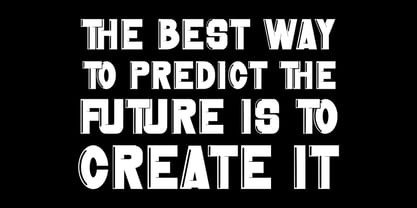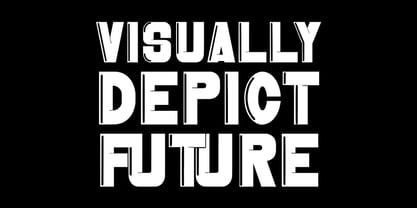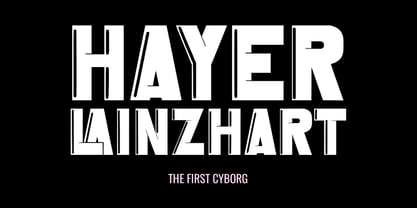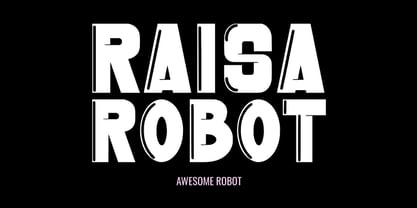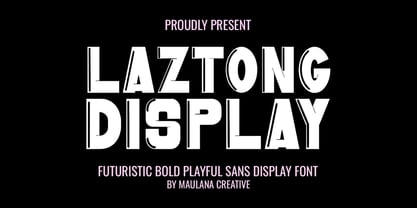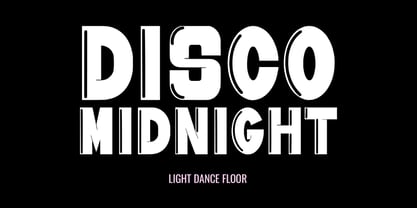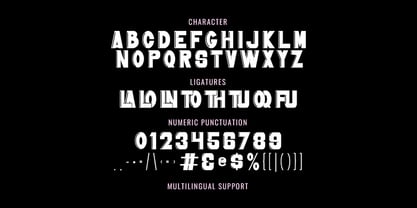
MC Laztong
by Maulana Creative
The MC Laztong Font Family was designed by Gilang Maulana and published by Maulana Creative. MC Laztong contains 1 styles. More about this family
Laztong Display is a bold, futuristic, and playfully designed sans serif font that demands attention. Crafted to embody the essence of the future, technology, and energetic club culture, Laztong features a unique split-line effect within its characters, giving it a distinctive, dynamic, and glitchy aesthetic. Why Laztong is Your Next Must-Have Font: - Futuristic and Edgy: Perfect for projects needing a modern, sci-fi, or cyber-punk vibe. Ideal for tech branding, gaming, and digital art. - High Impact Display: The thick, uppercase letters ensure maximum visibility and impact, making it excellent for headlines, logos, and album. - Playful Glitch Effect: The inner-line break creates a cool, "in-motion" or "digital interference" look that sets your design apart. - Versatile for Entertainment: From neon-lit disco flyers and midnight dance to robot-themed and powerful brand statements, Laztong brings life to your concepts. This font is a powerhouse for: - Logotypes & Branding (especially for tech, gaming, and urban) - Event Promotion (music, club nights, sci-fi movies) - Graphic Design - Video Titles & Social Media Graphics
Designers: Gilang Maulana
Foundry: Maulana Creative